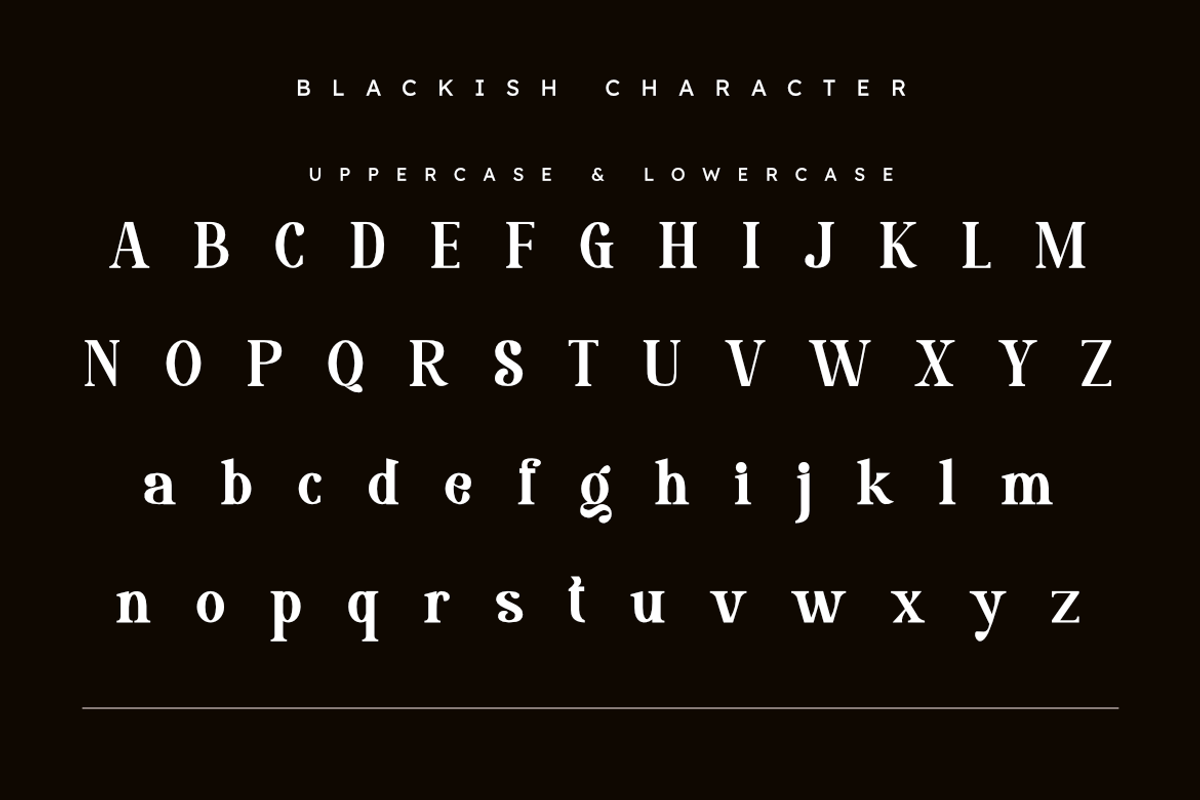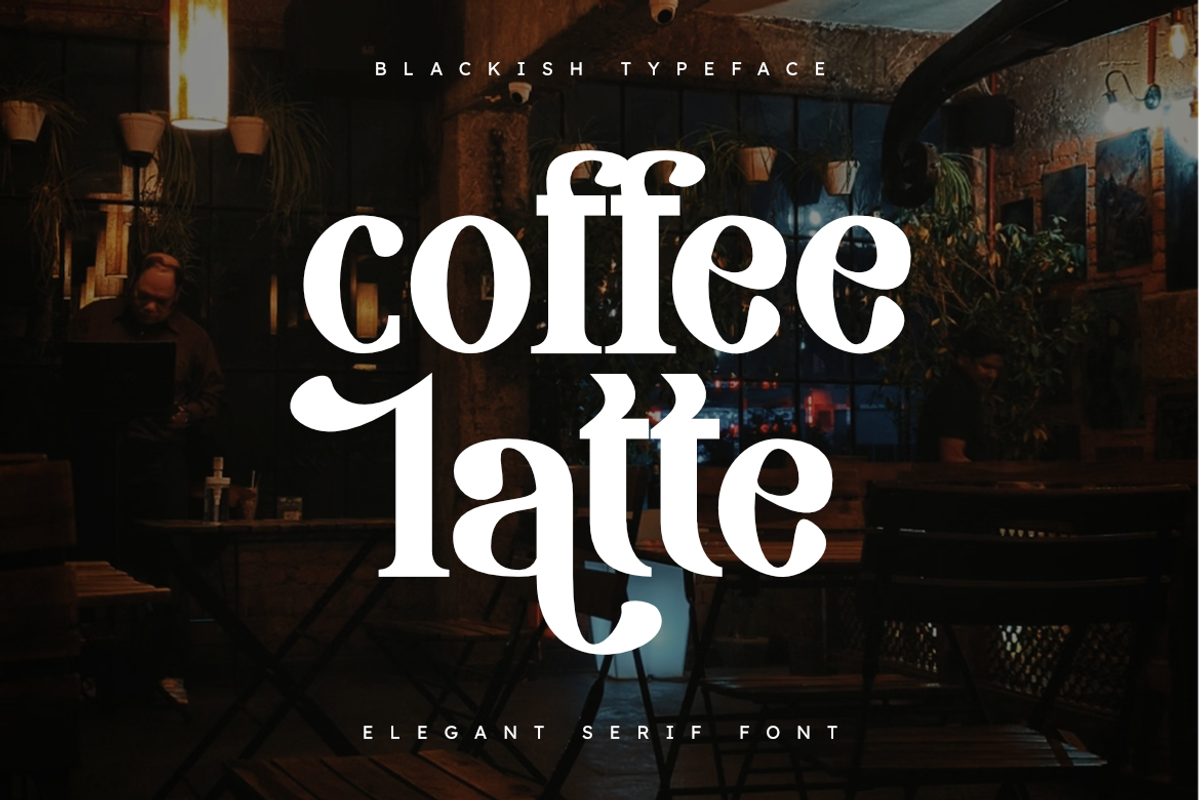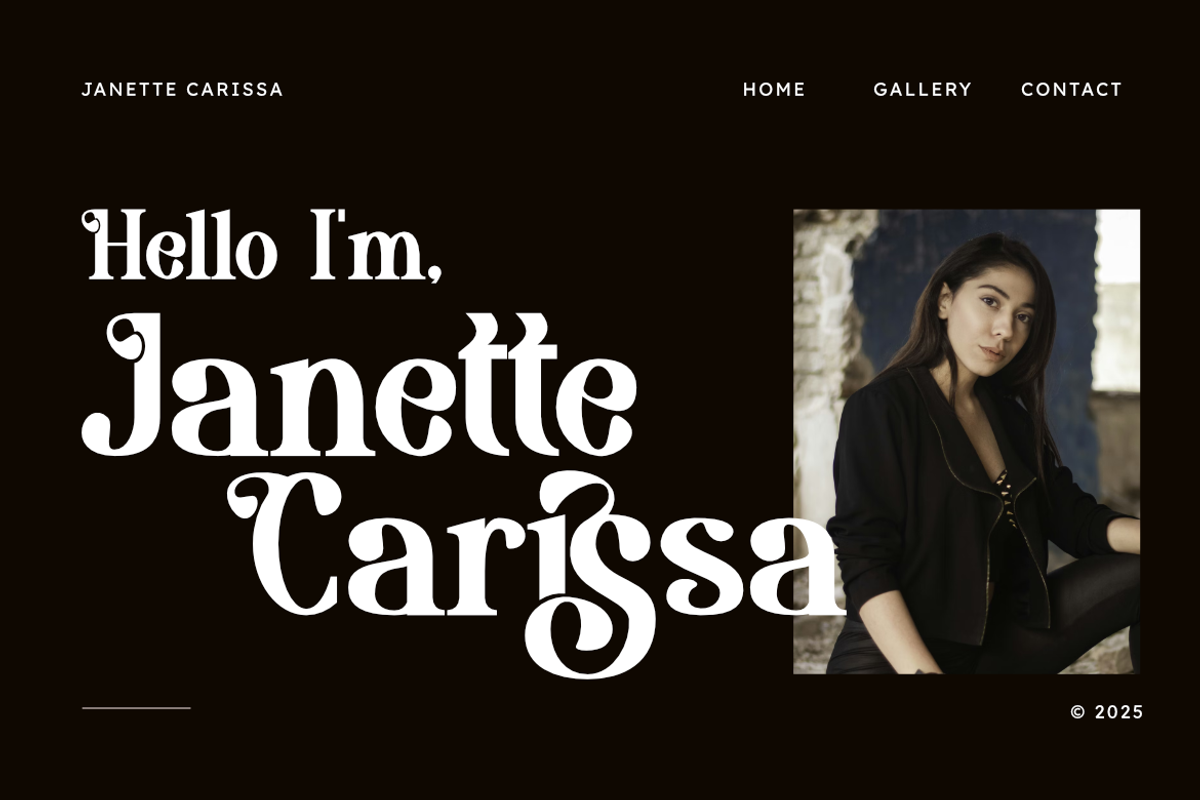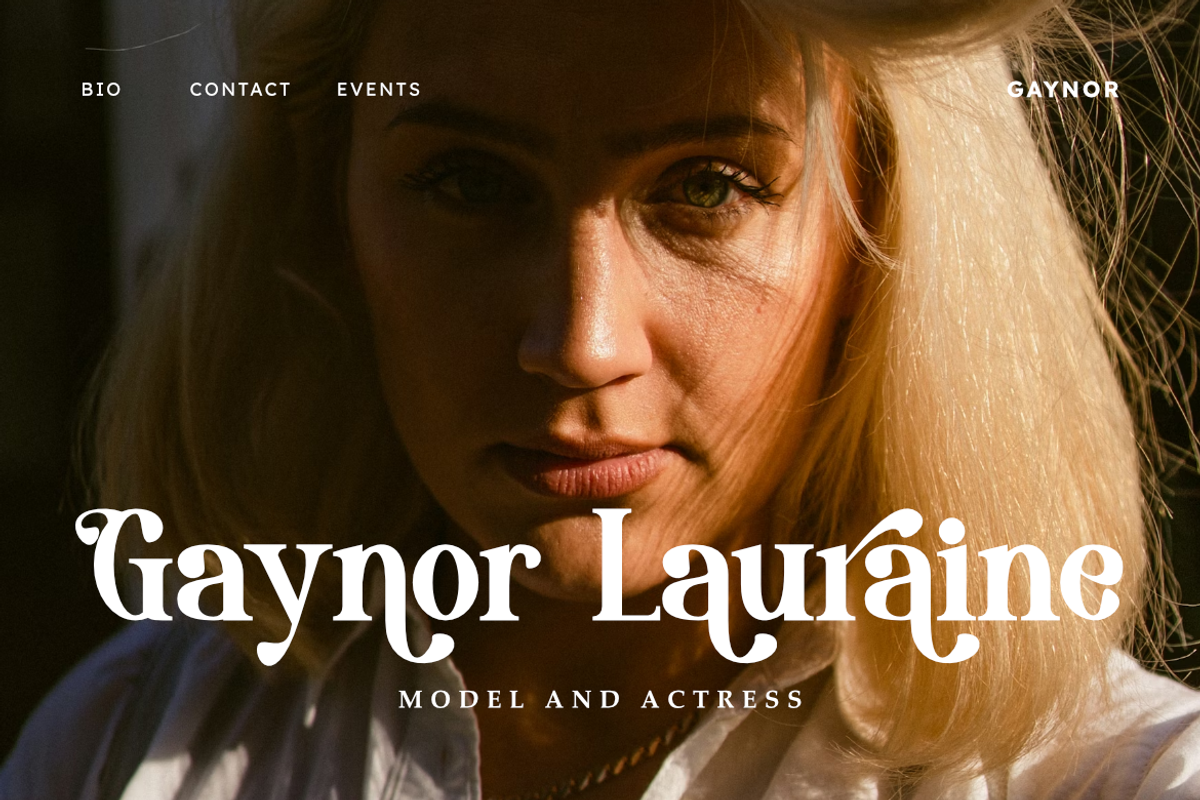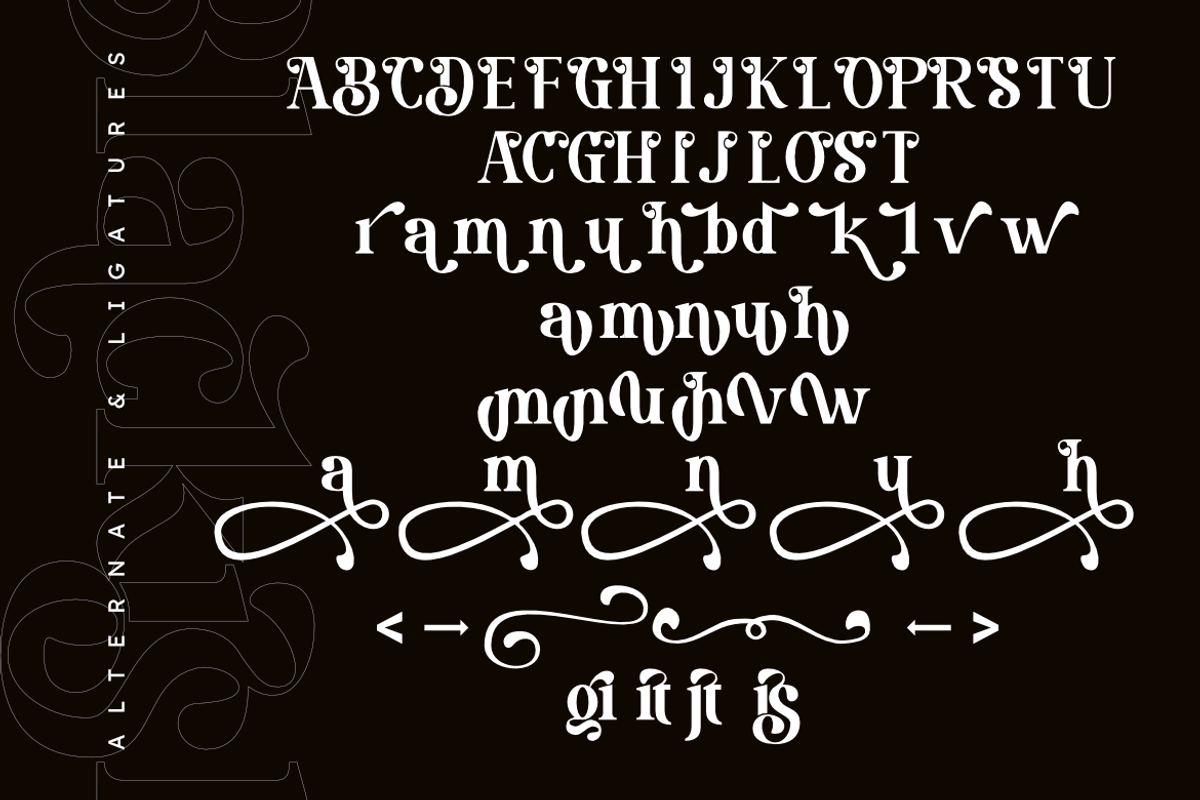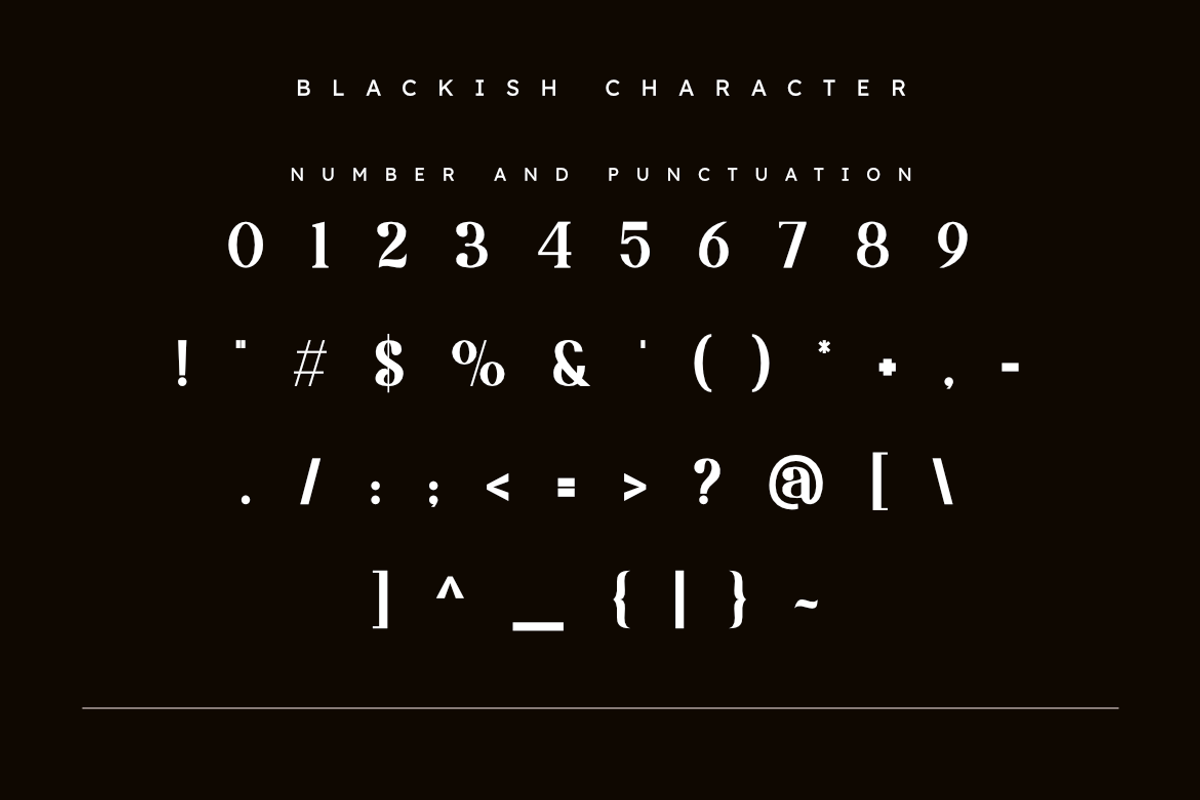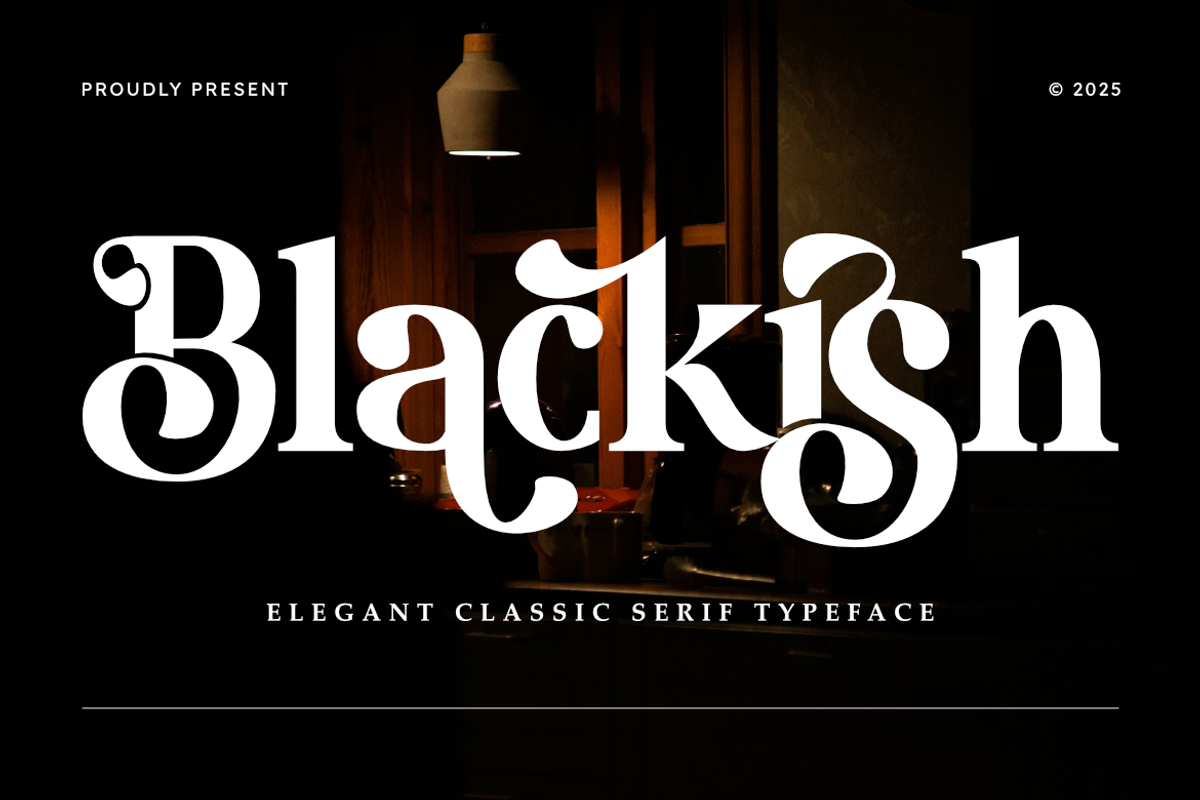
Blackish | Sophisticated Classic
Experience the perfect blend of tradition and modernity with Blackish, an elegant classic serif typeface from Masyafi Studio. Inspired by timeless editorial typography, Blackish features dramatic contrast and fluid terminals that command attention while maintaining a sense of refined grace.
Whether you are designing a logo for a boutique fashion house, crafting a high-end magazine layout, or creating social media content for a luxury lifestyle brand, Blackish provides the versatility and "wow factor" your project deserves.
Why Choose Blackish? Blackish isn't just a font; it's a design tool for creators who value detail. The sharp serifs and organic curves create a rhythmic flow that is pleasing to the eye, making it ideal for headlines, wedding invitations, and product labels.